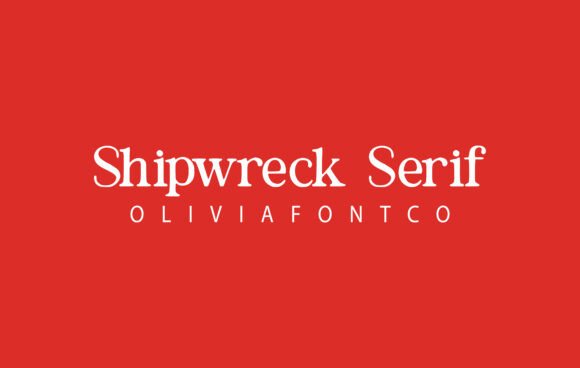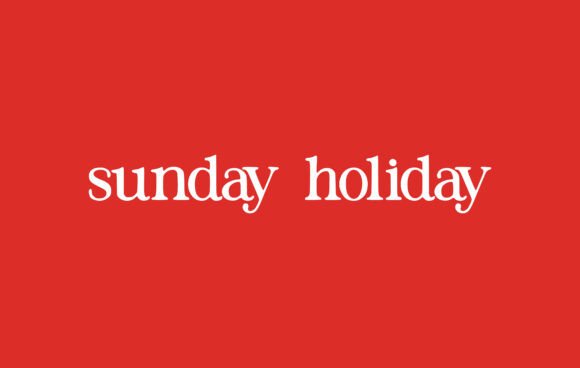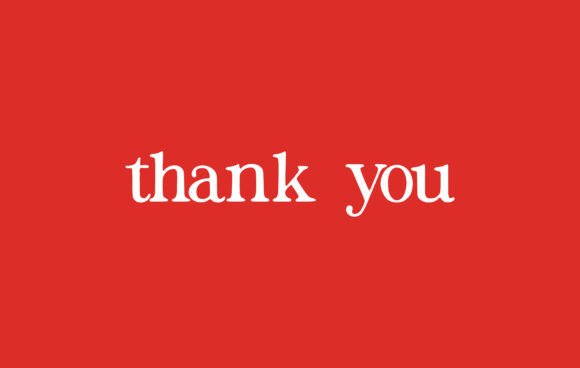
Shipwreck Serif Font
About the Shipwreck Serif Font
Experience the unique personality of Shipwreck Serif Font, a font designed for impact. Shipwreck Serif is a bold and expressive serif typeface with high contrast and uniquely weathered curves. Its subtly uneven details give it a vintage, windswept character that feels both refined and adventurous. Perfect for logos, editorial titles, packaging, and storytelling designs that call for a sense of drama and classic charm.
Shipwreck Serif Font Usage Examples
Shipwreck Serif Font Example